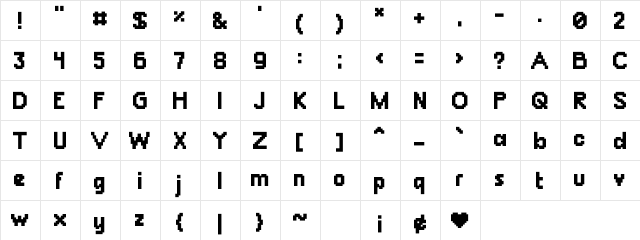
ChunkyDunk Medium
Design Context for ChunkyDunk Typeface
ChunkyDunk is a composed and adaptable typeface that performs quietly and consistently across a wide range of design contexts.
Pro Tip: Use ChunkyDunk in both headline and body roles to test its range before committing to a single application.